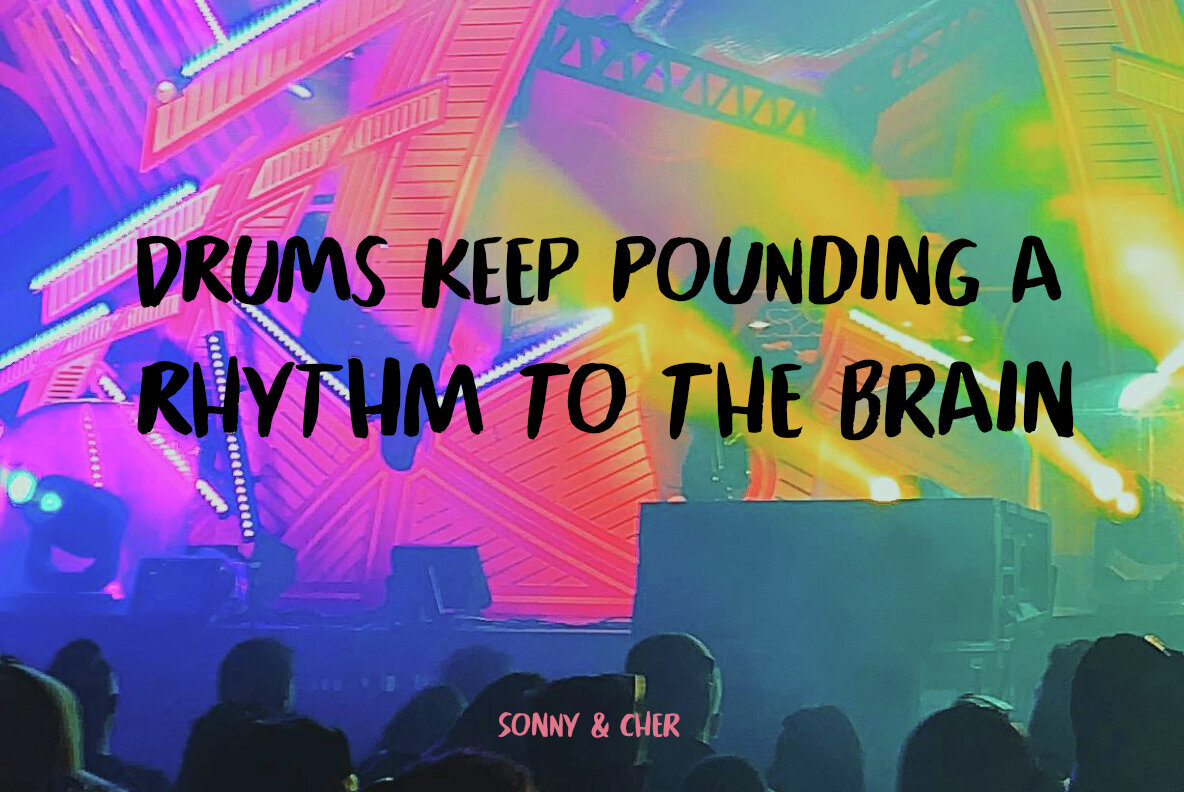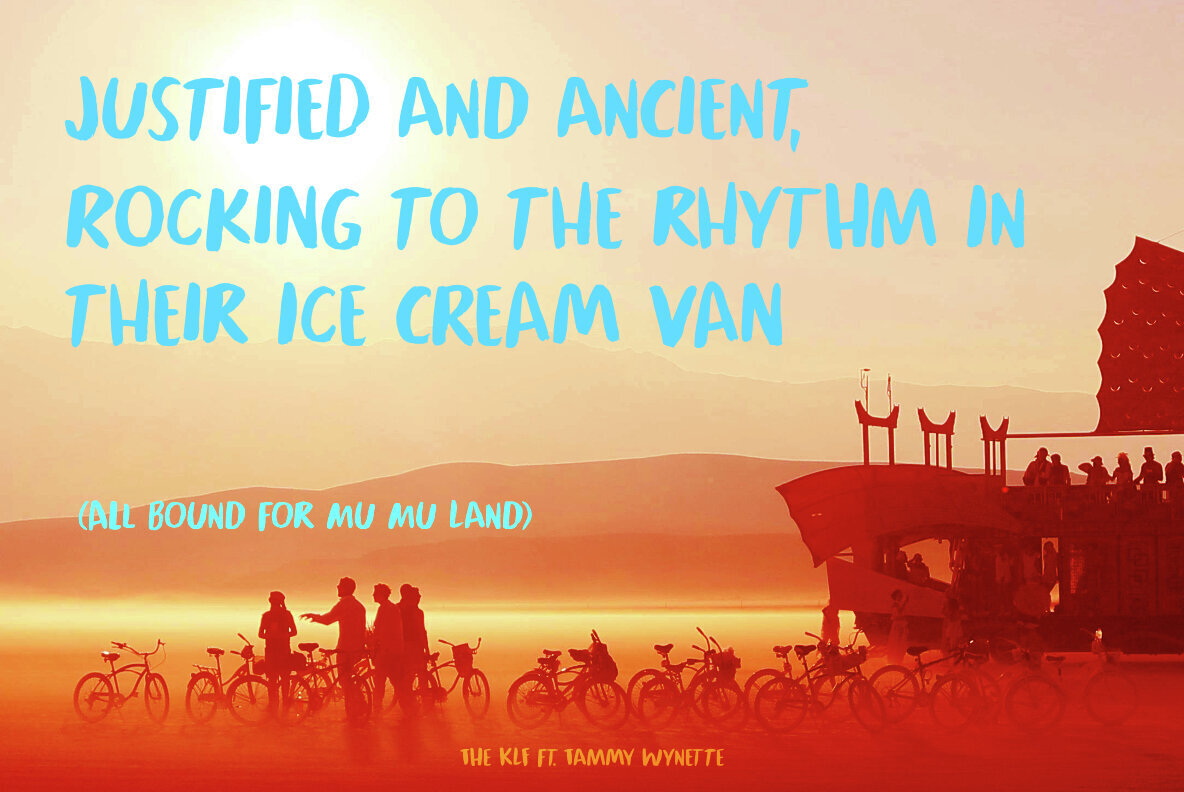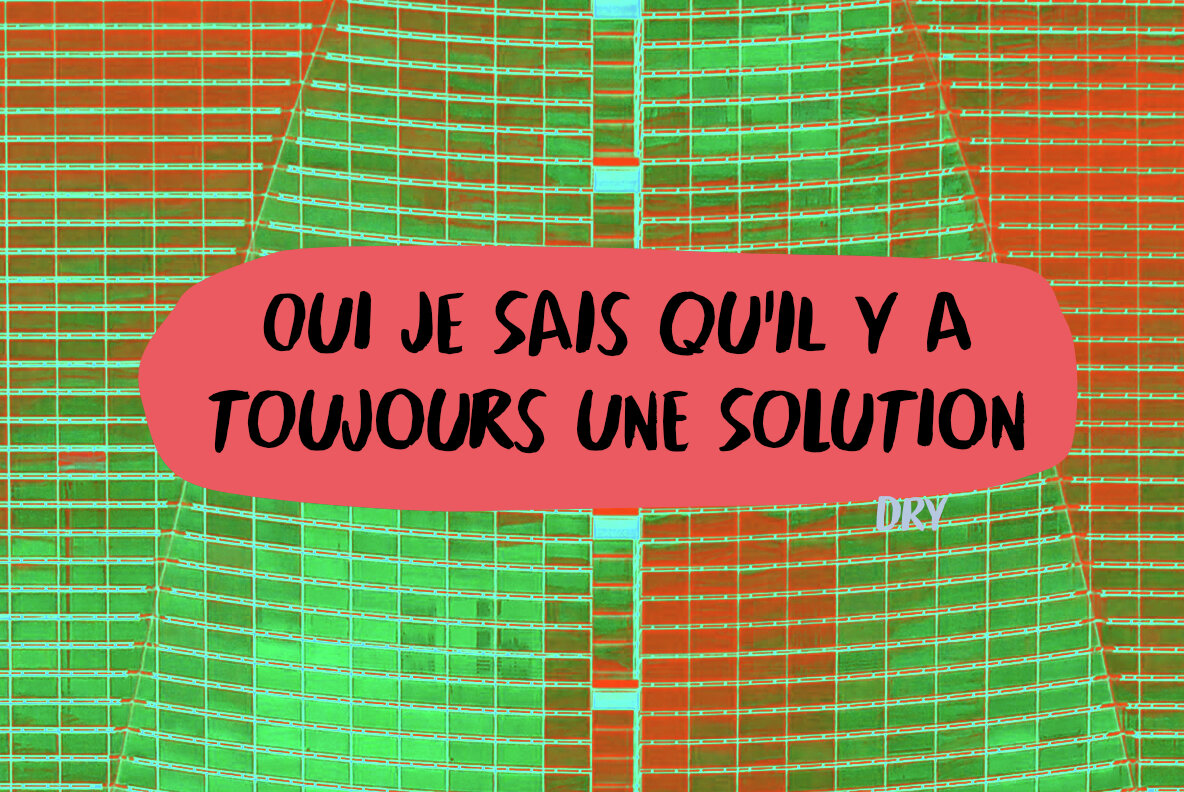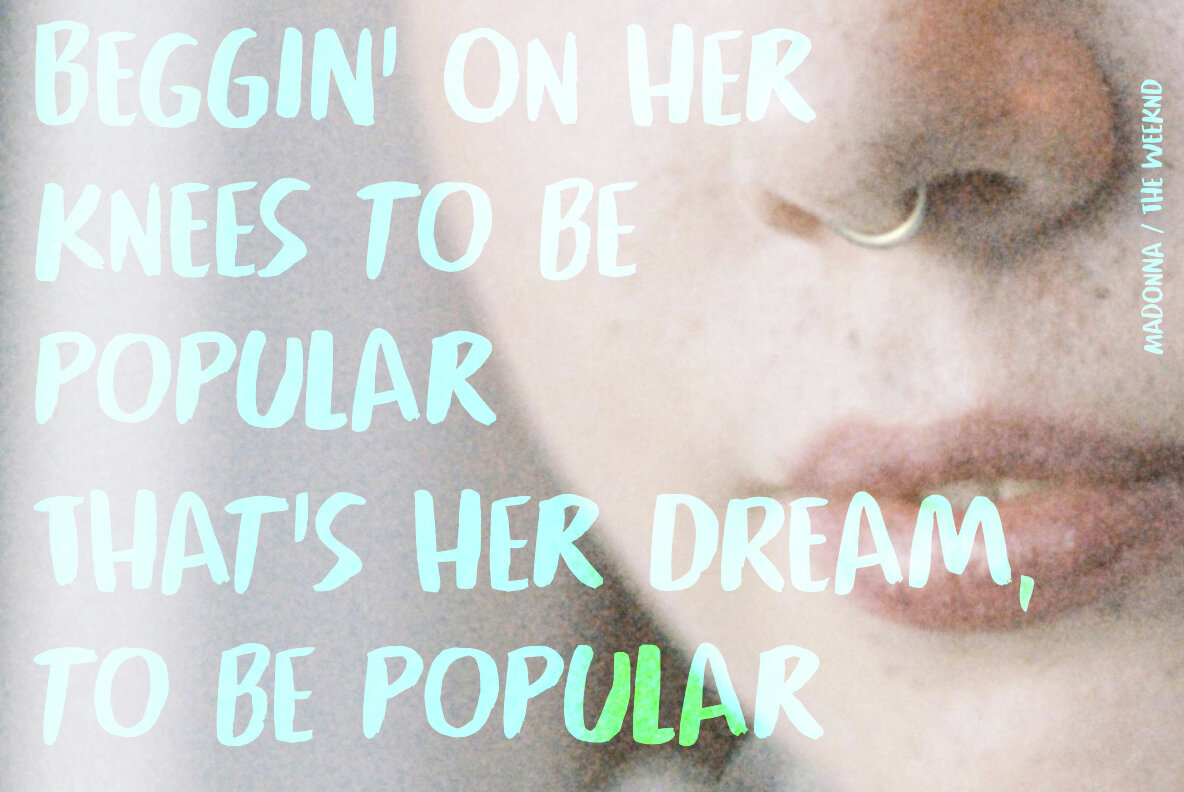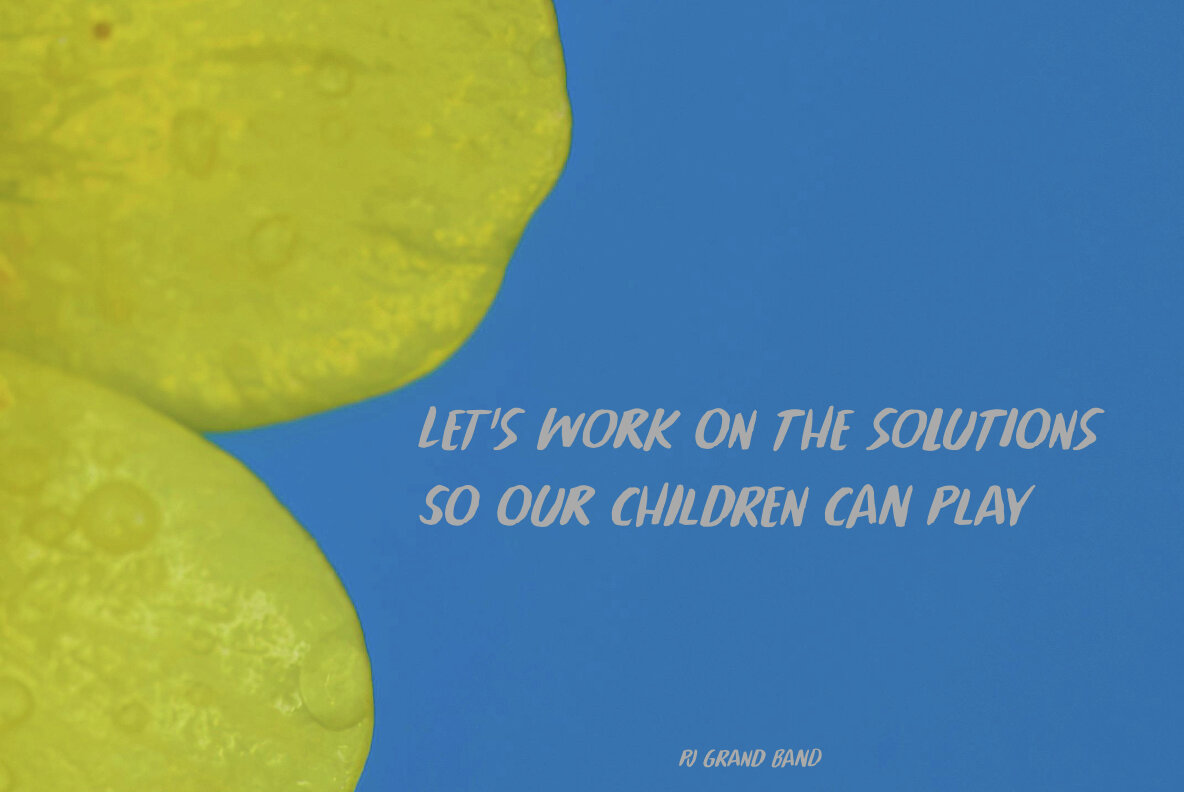
Popular Solution Font
Popular Solution is a font I made with a soft, pointy brush and Chinese ink on 180gr water colour paper. The name? Well, I often use a random word generator for inspiration and look for a combination of words that just sounds good. Popular Solution is an uncommon combination, but when you say them out loud, it sounds good. Popular Solution comes with extensive language support and a set of alternates for the lower case glyphs.